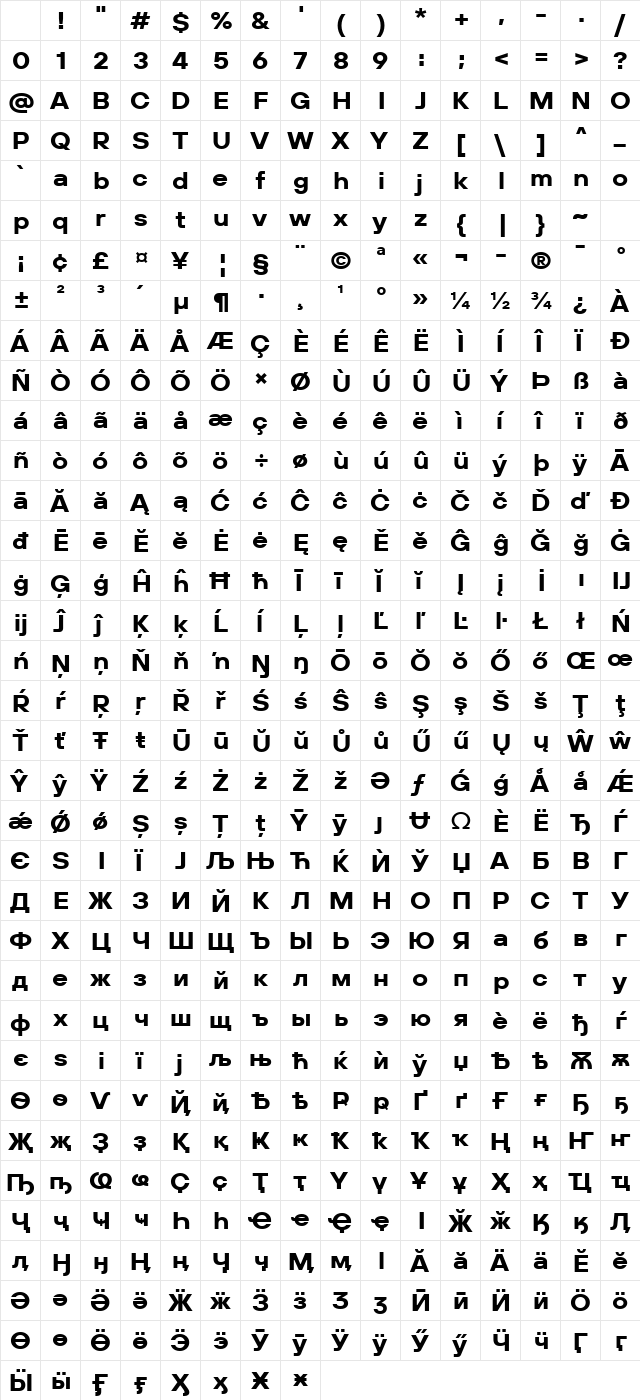
TT Hoves Pro Trl Expanded Bold
Designer: Designed by Ivan Gladkikh, Pavel Emelyanov, Yulia Gonina, Marina Khodak, Radik Tukhvatullin, Nadyr Rakhimov. Technical designers Nadezhda Polomoshnova, Kseniya Karataeva, Olexa Volochay, Yuriy Nako, Tasya Petelina, Anastasia Pogorelova, Victor Rubenko.
Design Context for TT Hoves Pro Trl Expanded
TT Hoves Pro Trl Expanded is a composed and adaptable typeface that performs quietly and consistently across a wide range of design contexts. Its bold stroke weight gives it real presence on the page.